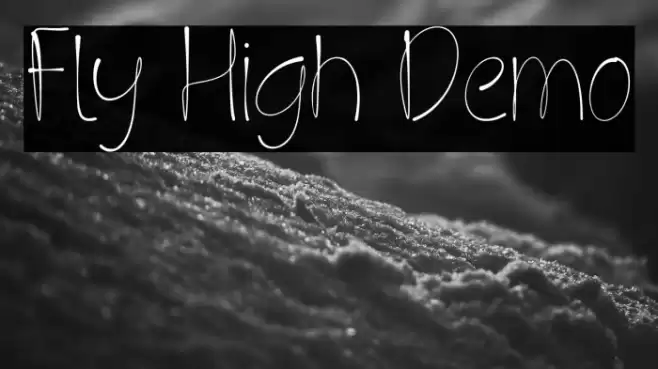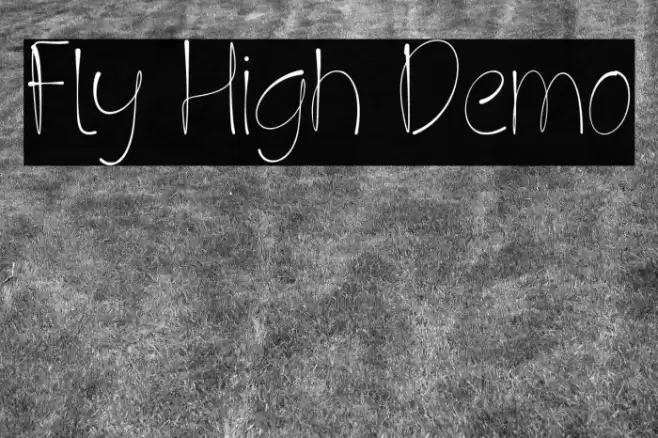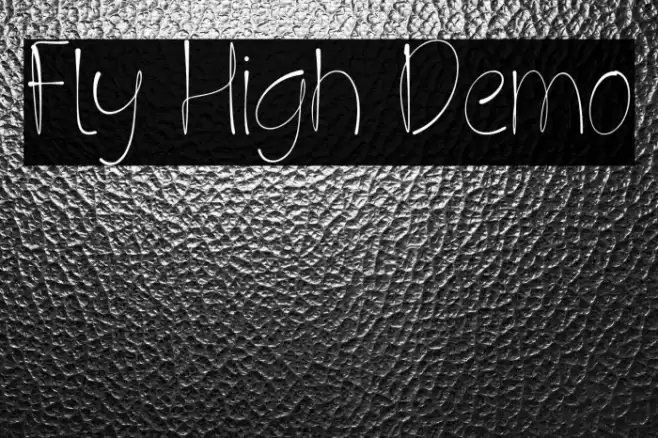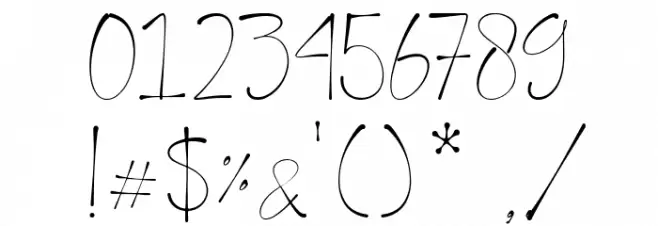
Fly High Demo Font
Fly High Demo Description
This font features a playful and whimsical handwritten style, characterized by its thin, uneven strokes and slightly irregular letterforms. The uppercase letters are tall and narrow, with a casual, free-flowing appearance that adds a sense of movement and energy. The lowercase letters maintain this informal style, with some characters exhibiting unique loops and curves that enhance the font's quirky personality. Numbers and special characters are consistent with the overall design, offering a cohesive look. The font's light weight and airy feel make it suitable for projects that require a touch of creativity and fun.
A playful, handwritten font with thin, irregular strokes and a whimsical style from Regular fonts.
- Font: Fly High Demo
- Proposed Projects: Ideal for greeting cards, children's books, playful branding, and creative social media graphics.
- Weight: Light
- Overall Style: Playful, Whimsical
- Use Case: Headlines, Creative projects, Informal text